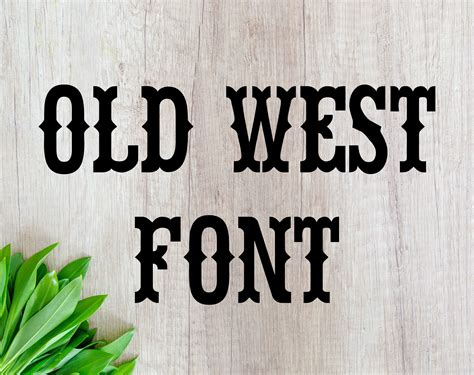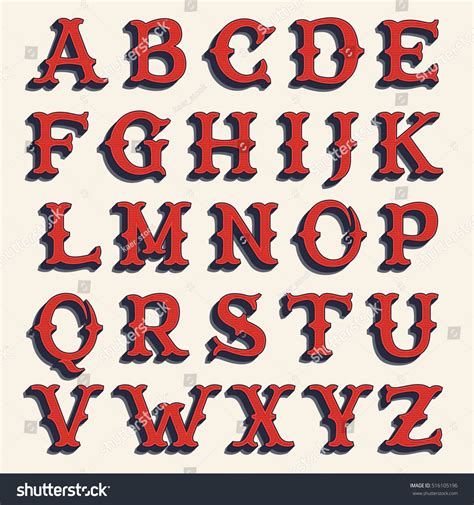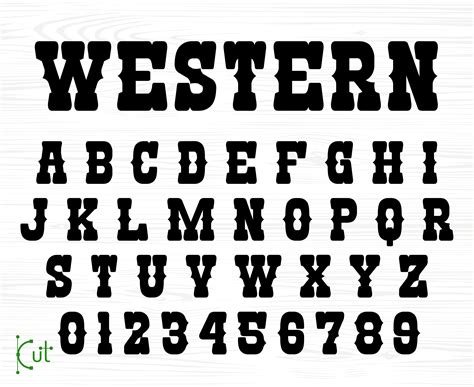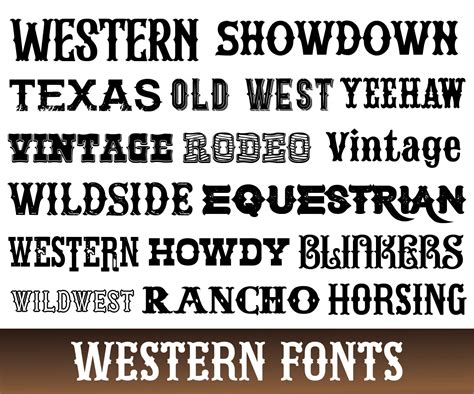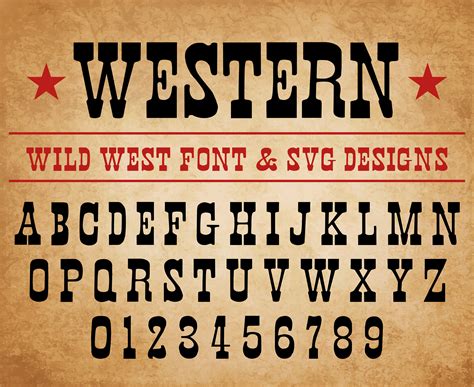
Western Style Fonts have long been a staple in graphic design, branding, and typography, evoking a sense of rugged individualism, adventure, and the spirit of the American frontier. These fonts are characterized by their bold, often serifed or distressed styles, which can add a touch of authenticity and nostalgia to any project. Whether you're designing a logo for a cowboy-themed event, creating a poster for a Western-themed movie, or simply looking to add a rustic charm to your website, Western Style Fonts can be an excellent choice.
Understanding Western Style Fonts
Western Style Fonts are more than just a design choice; they are a cultural statement. These fonts often draw inspiration from the Wild West era, incorporating elements that reflect the rugged landscapes, frontier life, and the iconic figures of the time. The typography can range from elegant and refined to rough and weathered, depending on the specific design and the message you want to convey.
Some of the key characteristics of Western Style Fonts include:
- Bold and Distressed Styles: Many Western Style Fonts feature bold, thick strokes and distressed textures to mimic the look of hand-carved wood or aged metal.
- Serif and Sans-Serif Variants: While serif fonts are more traditional and often used in classic Western designs, sans-serif fonts can also be found in modern interpretations of Western typography.
- Rustic and Vintage Aesthetics: These fonts often incorporate elements like rough edges, uneven lines, and vintage textures to create a sense of authenticity and nostalgia.
- Iconic Symbols and Ornamentation: Western Style Fonts may include iconic symbols such as stars, horseshoes, and cowboy hats, as well as ornate borders and decorative elements.
Popular Western Style Fonts
There are numerous Western Style Fonts available, each with its unique characteristics and uses. Here are some of the most popular ones:
| Font Name | Description | Use Cases |
| Western | A classic Western font with a bold, serifed style and distressed texture. | Logos, posters, and branding for Western-themed events and businesses. |
| Cowboy | A playful and rustic font with uneven lines and a hand-drawn feel. | Invitations, menus, and signage for Western-themed parties and restaurants. |
| Frontier | A serif font with a vintage, weathered look, perfect for evoking a sense of history. | Book covers, historical documents, and vintage-inspired designs. |
| Rustic | A sans-serif font with rough edges and a distressed texture, ideal for modern Western designs. | Websites, social media graphics, and contemporary branding. |
| Wild West | A bold, serifed font with ornate details and a rugged appearance. | Movie posters, game design, and any project needing a dramatic Western touch. |
How to Choose the Right Western Style Font
Selecting the right Western Style Font depends on the specific needs of your project. Here are some tips to help you make the best choice:
- Consider the Tone: Determine whether you need a font that is more elegant and refined or one that is rough and rugged. This will help you narrow down your options.
- Match the Context: Think about where the font will be used. For example, a font with a distressed texture might be perfect for a poster but less suitable for a website header.
- Check for Versatility: Some Western Style Fonts come with multiple weights and styles, making them more versatile for different applications.
- Test for Readability: Ensure that the font is legible at various sizes and in different contexts. A font that looks great on a poster might not be as readable on a small screen.
When choosing a Western Style Font, it's also important to consider the overall design aesthetic of your project. The font should complement the other design elements, such as colors, images, and graphics, to create a cohesive and visually appealing result.
💡 Note: Always preview the font in the context of your project to ensure it meets your design goals and enhances the overall aesthetic.
Using Western Style Fonts in Design
Western Style Fonts can be used in a variety of design projects, from print to digital media. Here are some tips for incorporating these fonts into your designs:
- Logos and Branding: Western Style Fonts can add a unique and memorable touch to logos and branding materials. Choose a font that reflects the values and personality of your brand.
- Posters and Flyers: These fonts are perfect for creating eye-catching posters and flyers for events, movies, or promotions. The bold and distressed styles can help your design stand out.
- Websites and Digital Media: While Western Style Fonts can be used on websites, it's important to choose a font that is legible at smaller sizes. Consider using a sans-serif variant for better readability.
- Print Materials: For print materials like invitations, menus, and brochures, Western Style Fonts can add a rustic and authentic touch. Pair them with complementary graphics and textures for a cohesive look.